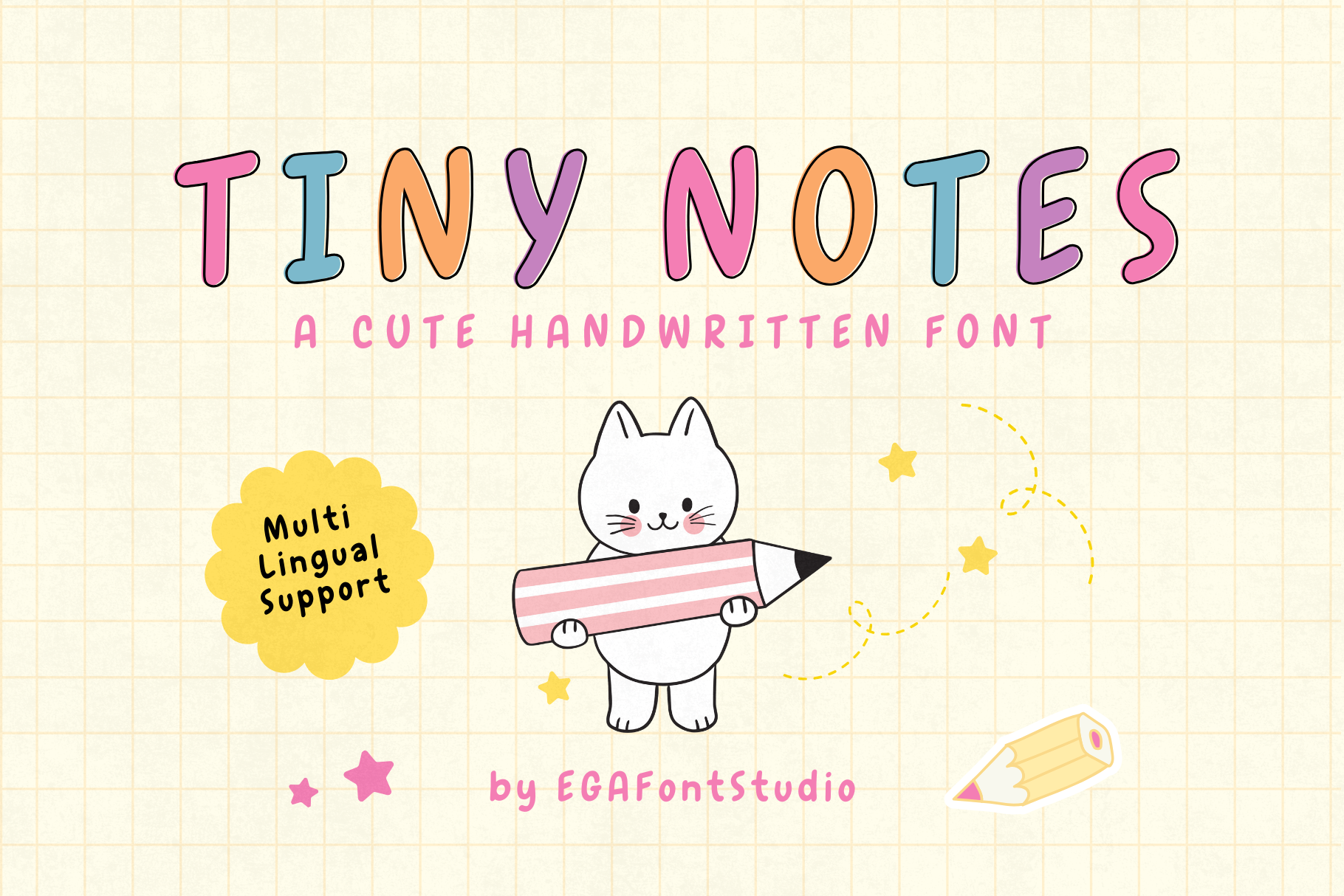
Tiny Notes | Cute Handwritten Font
Introducing "Tiny Notes" . Perfect for adding a touch of warmth to your projects, this font features multilingual support, making it versatile for a global audience. Whether you're creating greeting cards, invitations, or social media posts, "Tiny Notes" brings a delightful handwritten feel that's both endearing and easy to read. Explore its versatility and bring a dash of personality to your designs today!
- Multi lingual support
- Uppercase Characters
- Lowercase Characters
- Numbers and Punctuations